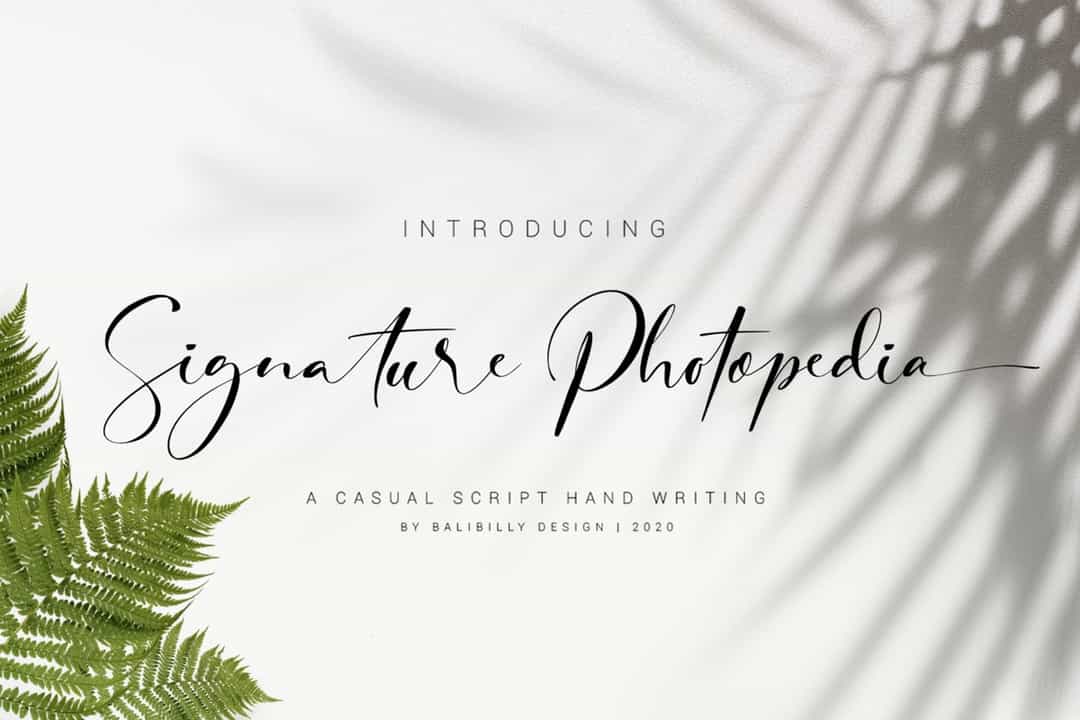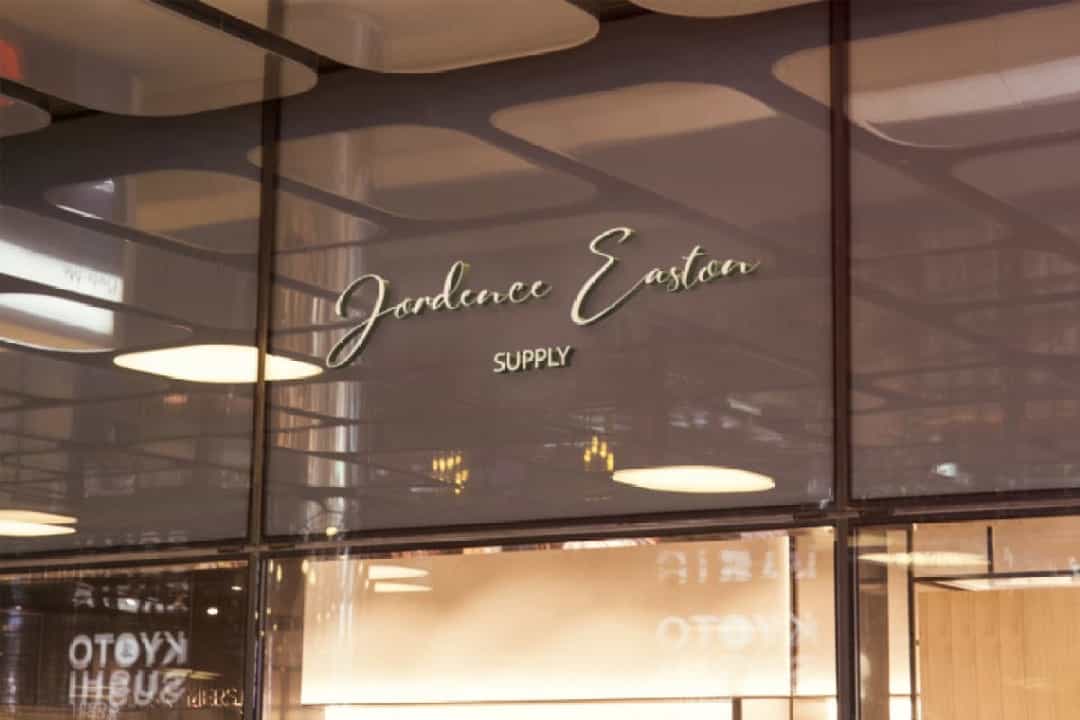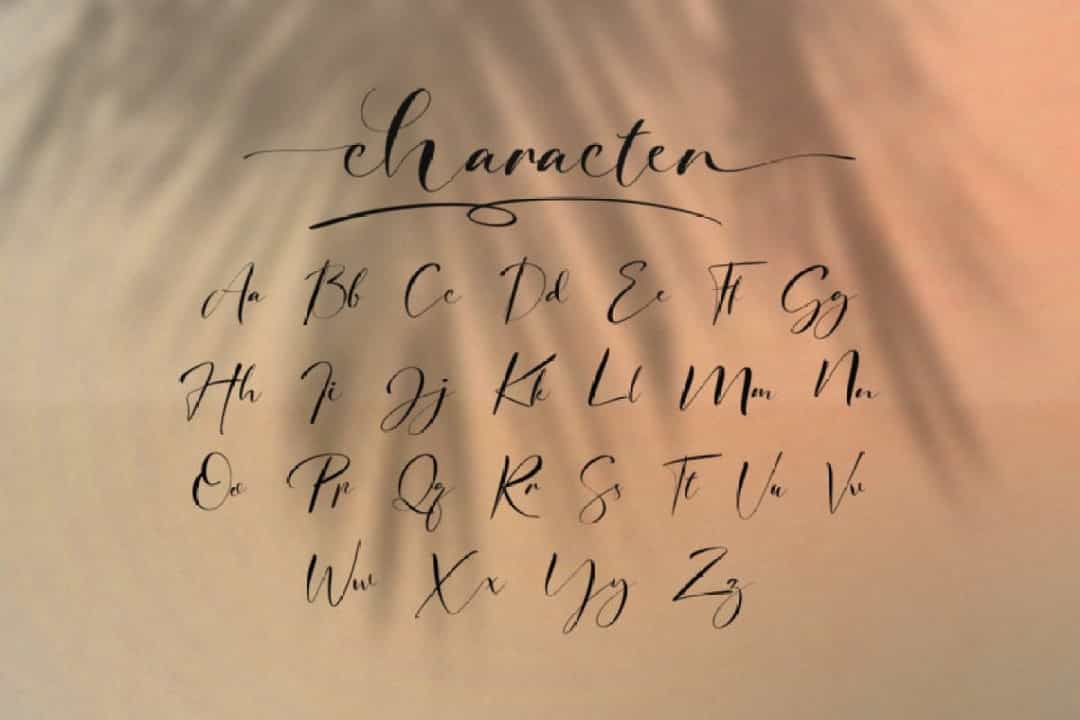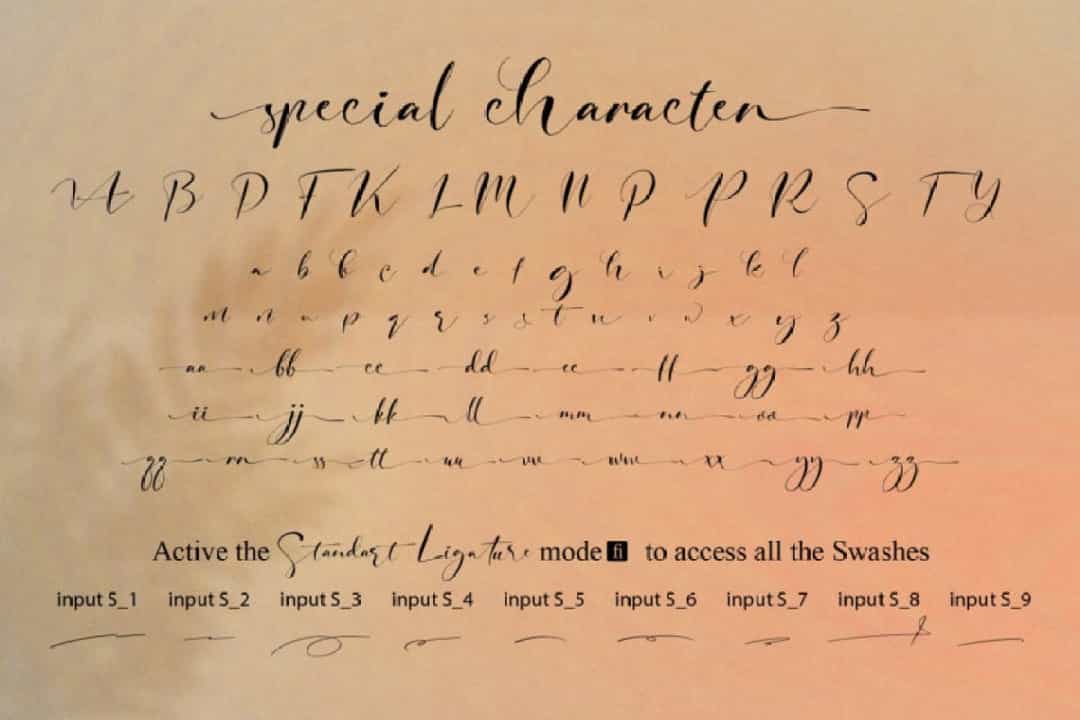
Signature Photopedia is the classic hand-drawn calligraphy typeface. It is classic thin typeface with an italic look. You will find the most beautiful classic font. The font comes in a variety of modern designs that will make your work appear elegant beautiful, sweet and gorgeous.